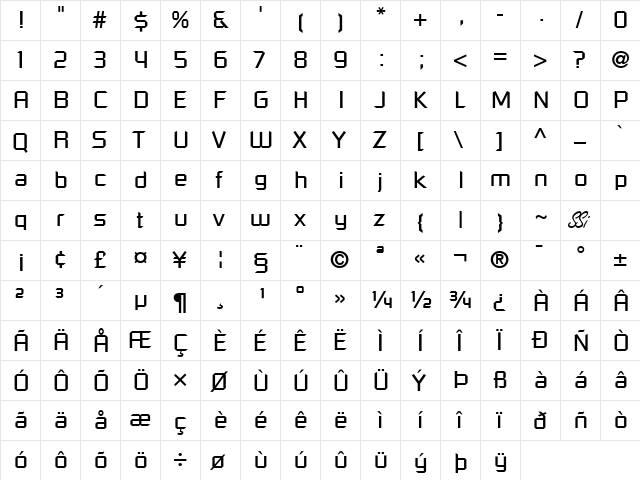
Shoestring SSi Regular
Design Context for Shoestring SSi Typeface
Shoestring SSi takes a measured approach to typography — its balanced proportions and neutral character make it a reliable workhorse for both digital and print work.